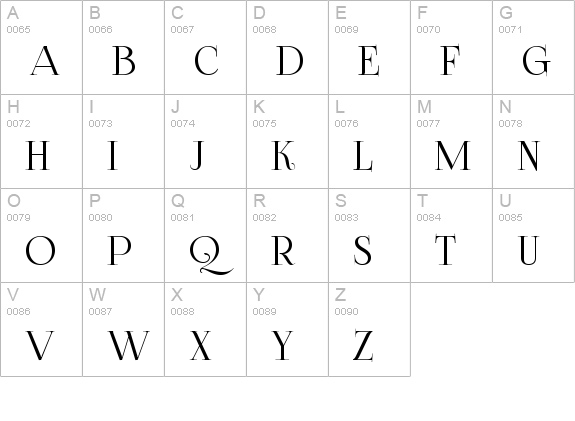
FoglihtenNo07 Font Details
FoglihtenNo07 font is a stunning display typeface that exudes elegance and sophistication. With its delicate curves and sharp edges, this font captures attention and adds a touch of sophistication to any design project. The unique and intricate design of FoglihtenNo07 font makes it perfect for headlines, logos, branding, and high-end print materials. Its versatility allows it to be used in both modern and traditional designs, making it a truly timeless choice. One of the best things about FoglihtenNo07 font is that it is free. Yes, you read that right! This remarkable font is freely available to download at FontsMarket.com. Whether you're a professional designer or a hobbyist, this font is a valuable addition to your collection. Downloading FoglihtenNo07 font is a breeze. Simply head over to FontsMarket.com, search for the font, and with just a few clicks, it will be ready to use in your next project. The free availability of this font allows you to access its beauty without any cost, making it a fantastic choice for designers on a budget. So, why wait? Embrace the elegance and sophistication that FoglihtenNo07 font brings to your designs. Download it for free at FontsMarket.com and let your creativity shine.